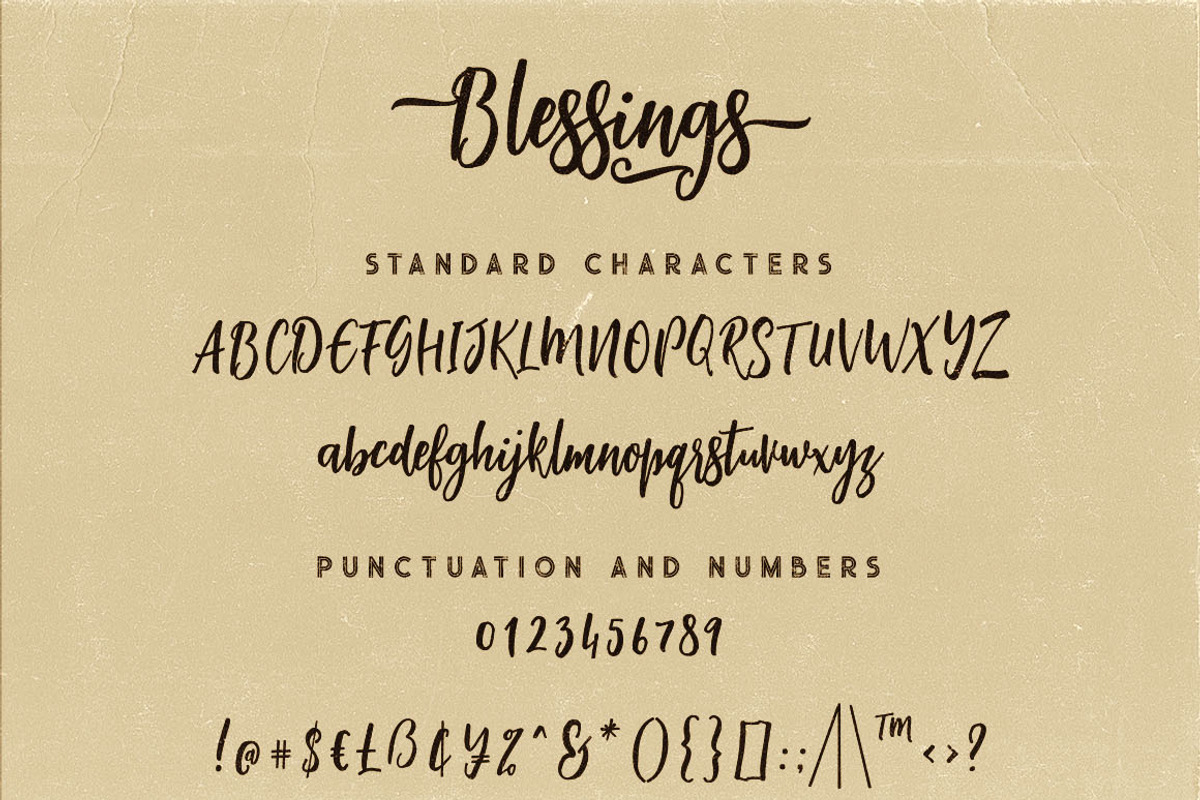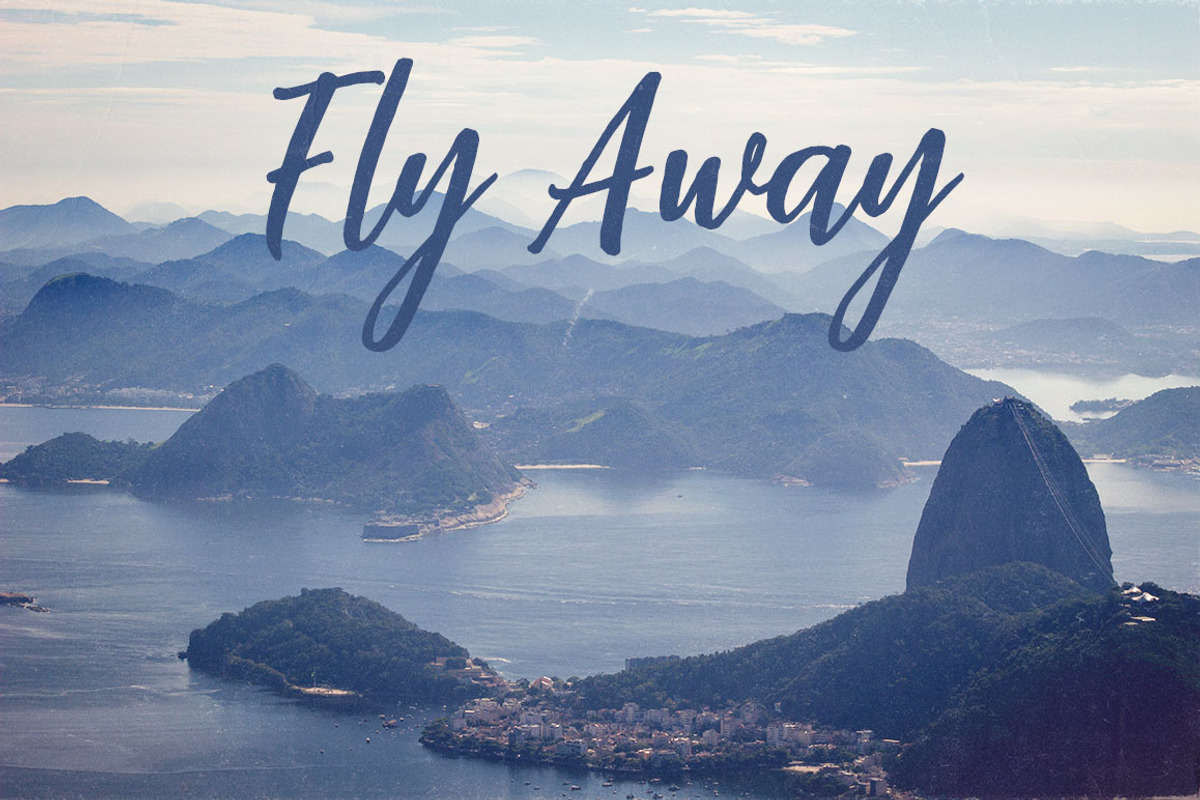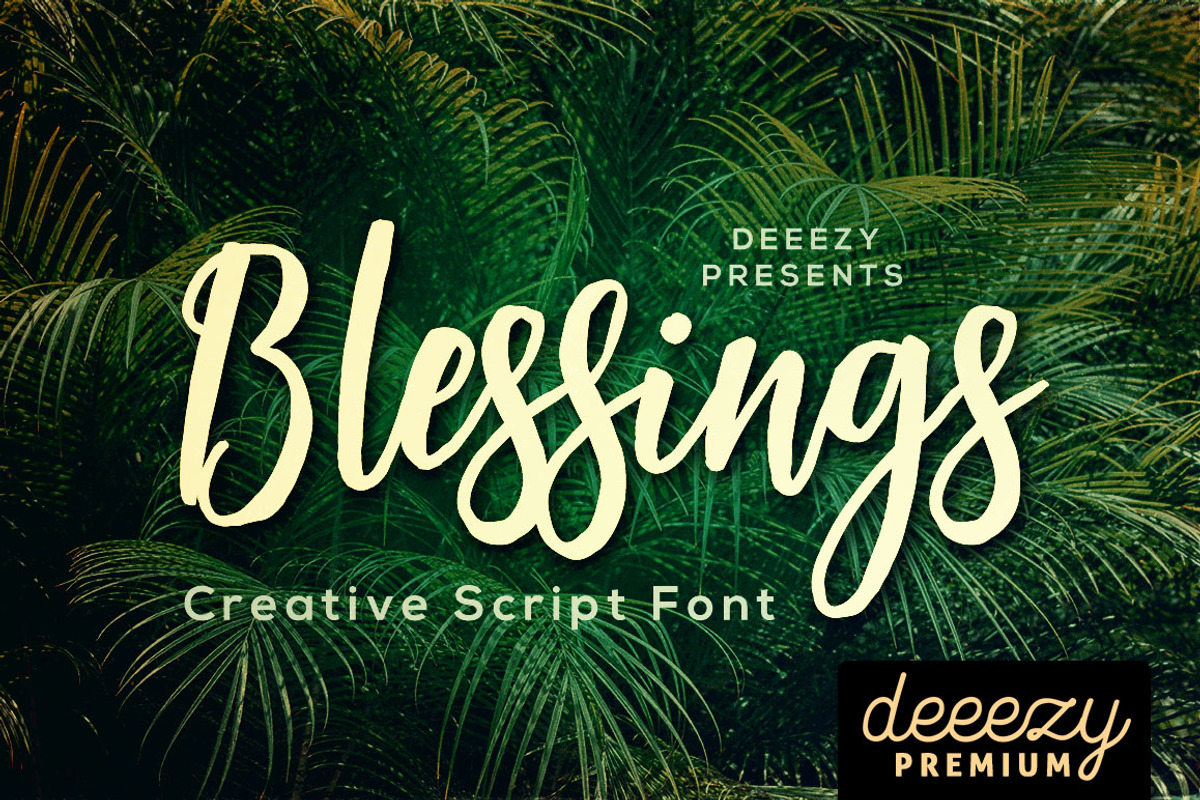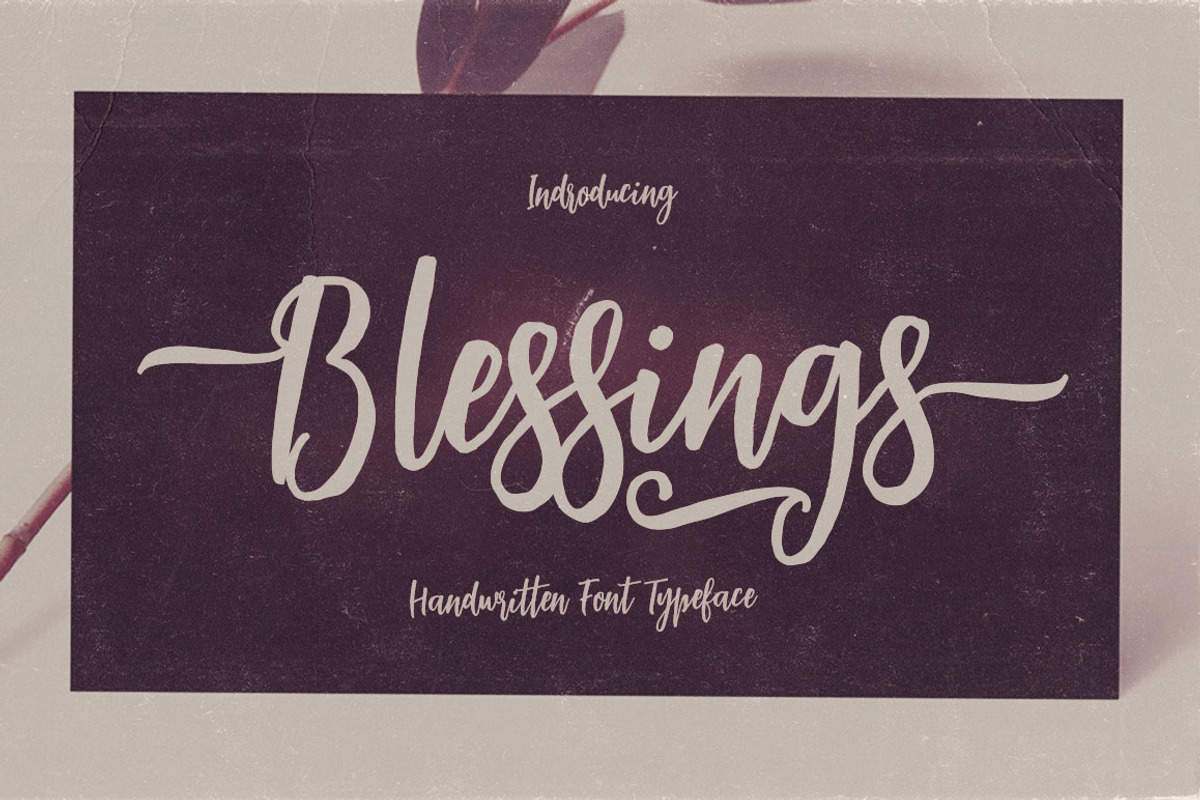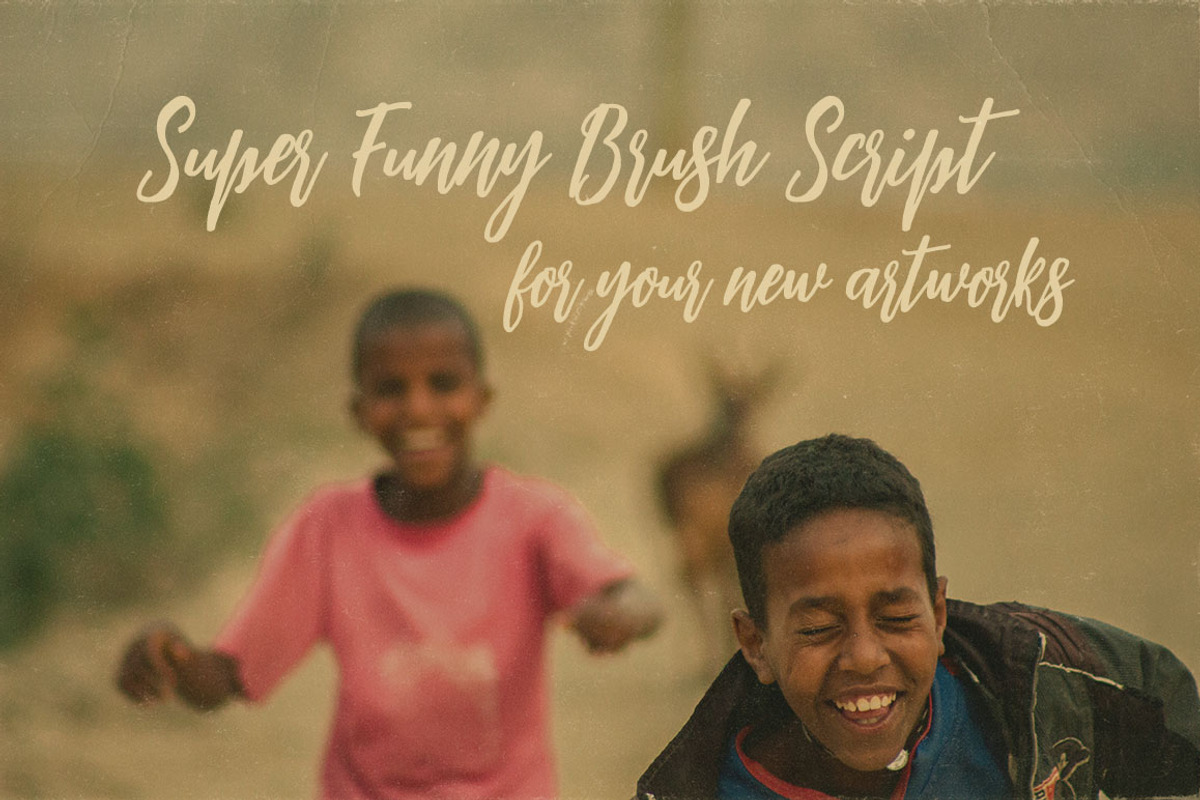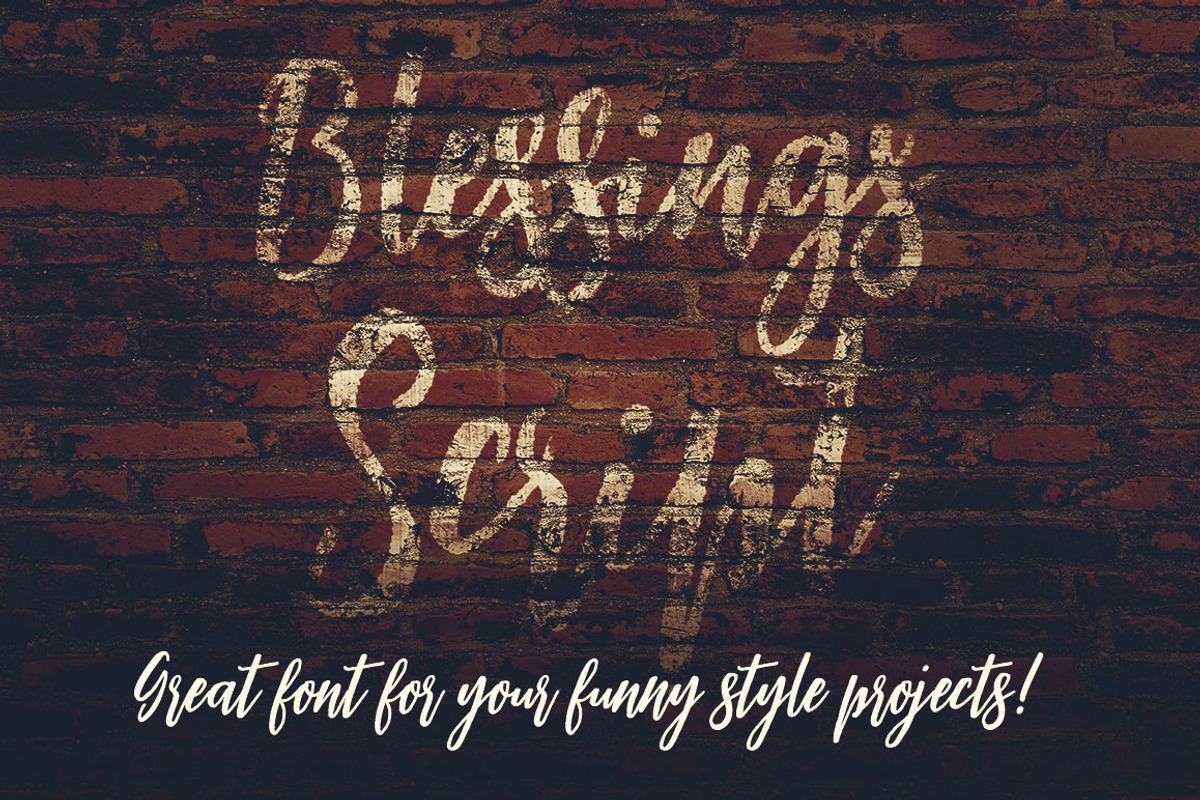
Blessings Script Font
Brush and funny style script font for your new projects. With multi language support and lot of stylistic alternates.
- With multi language support and lot of stylistic alternates.
Why Blessings Script Font is worth a look
Blessings Script Font by Deeezy fits naturally into Branding, posters, packaging, typography.